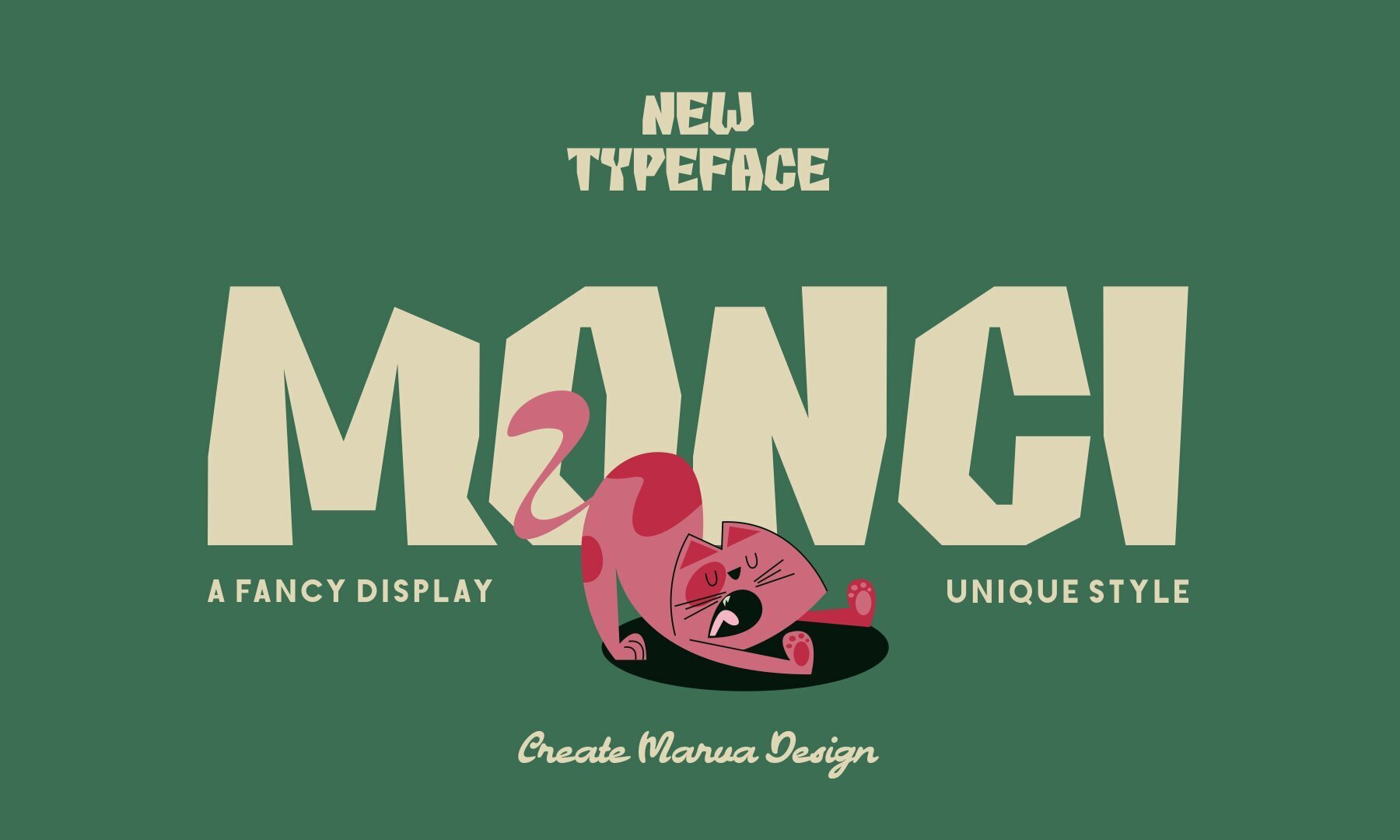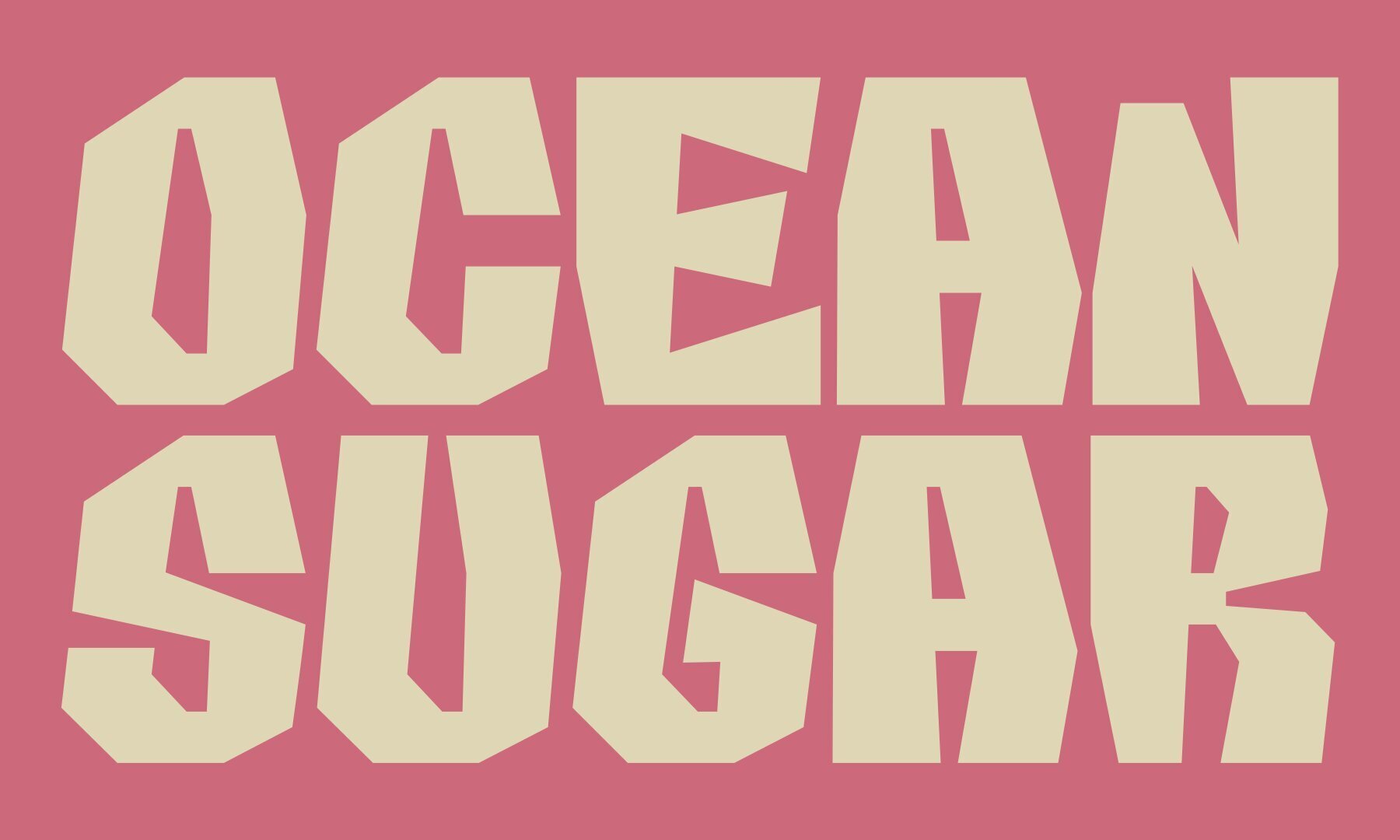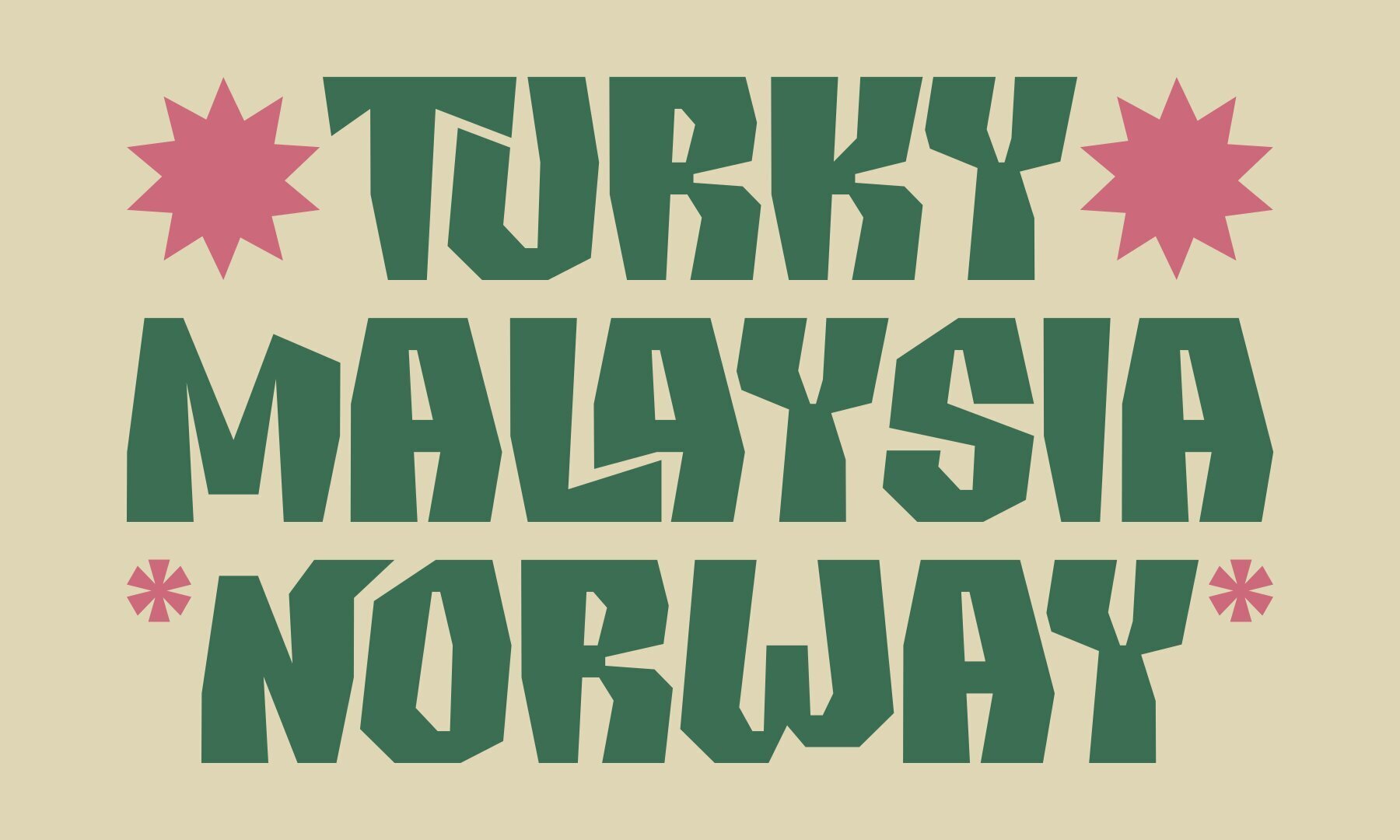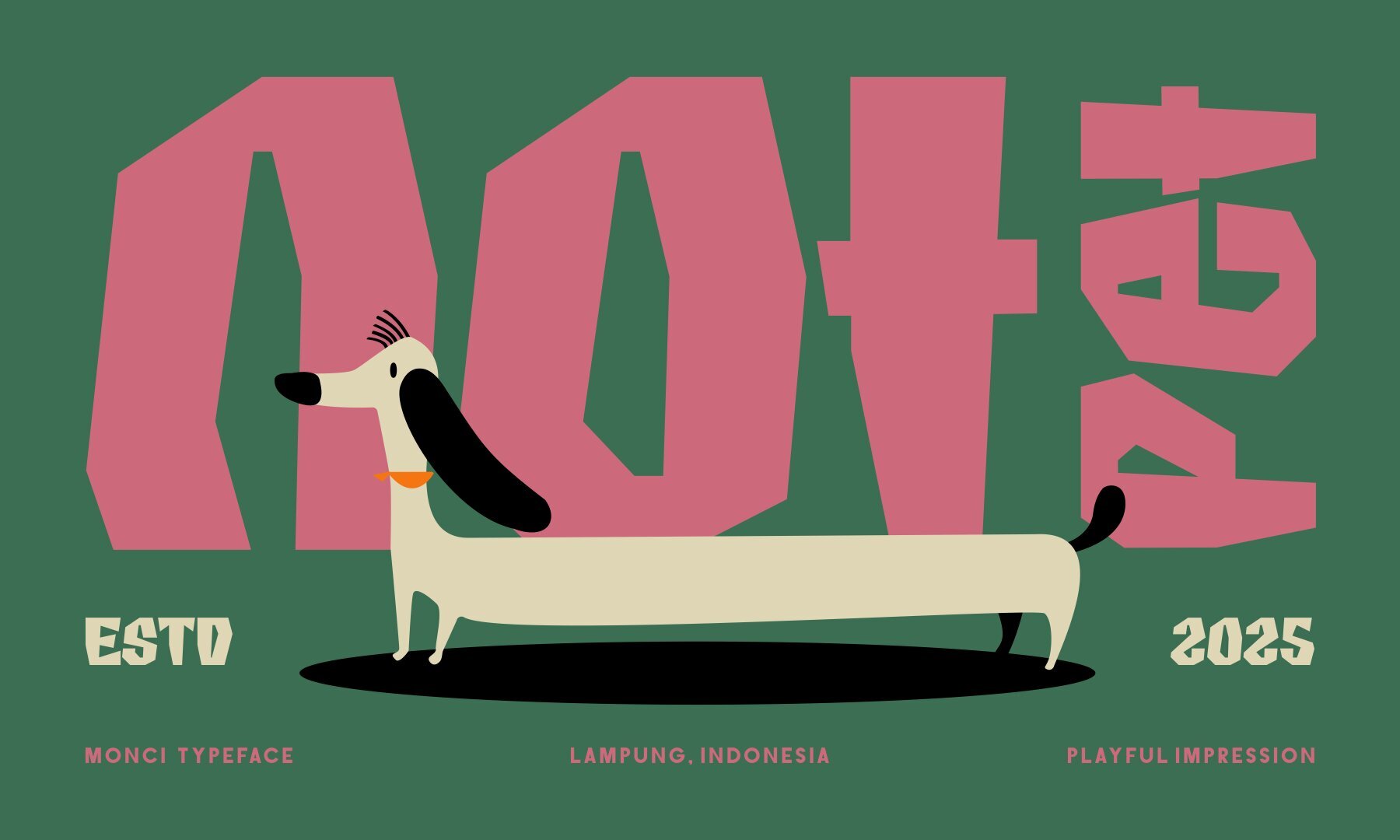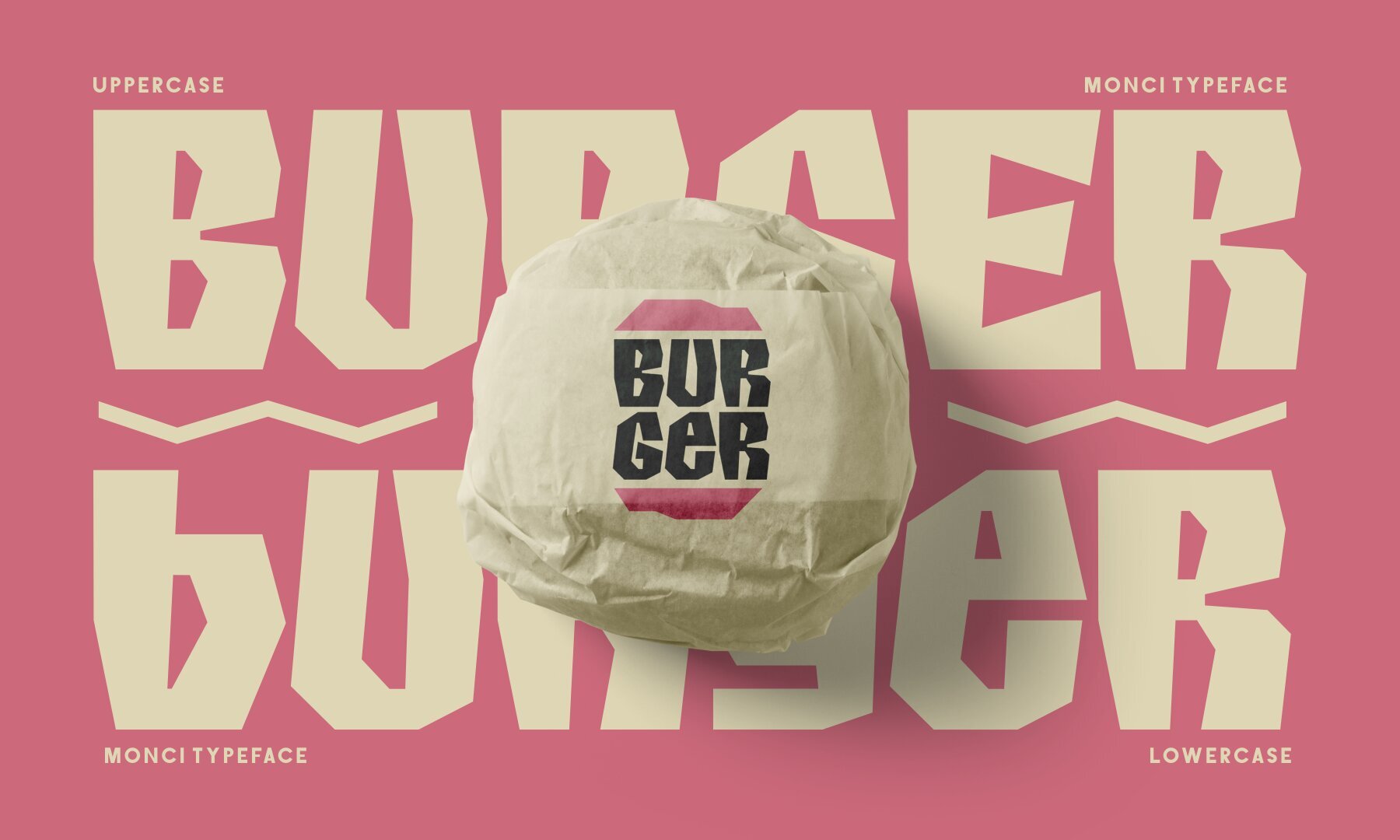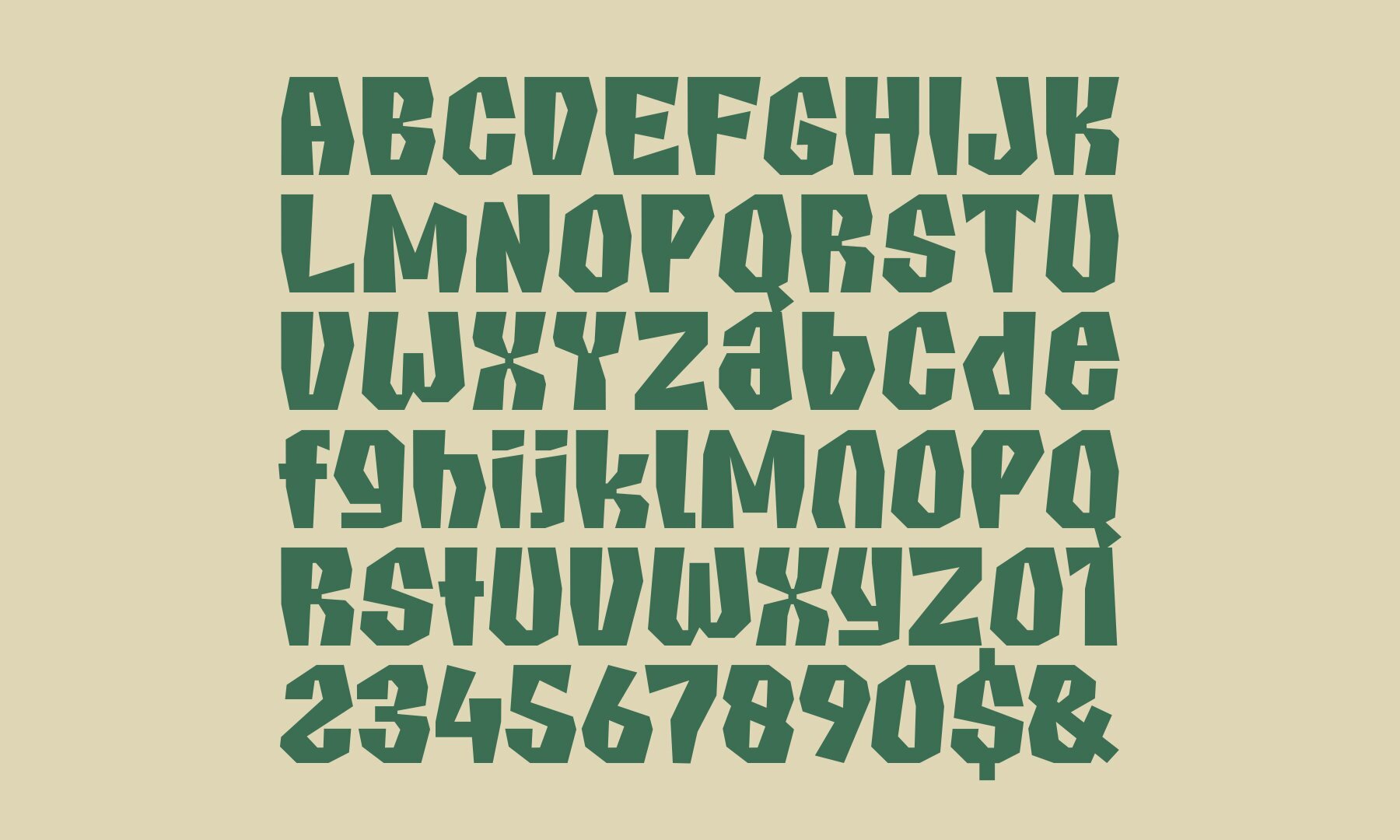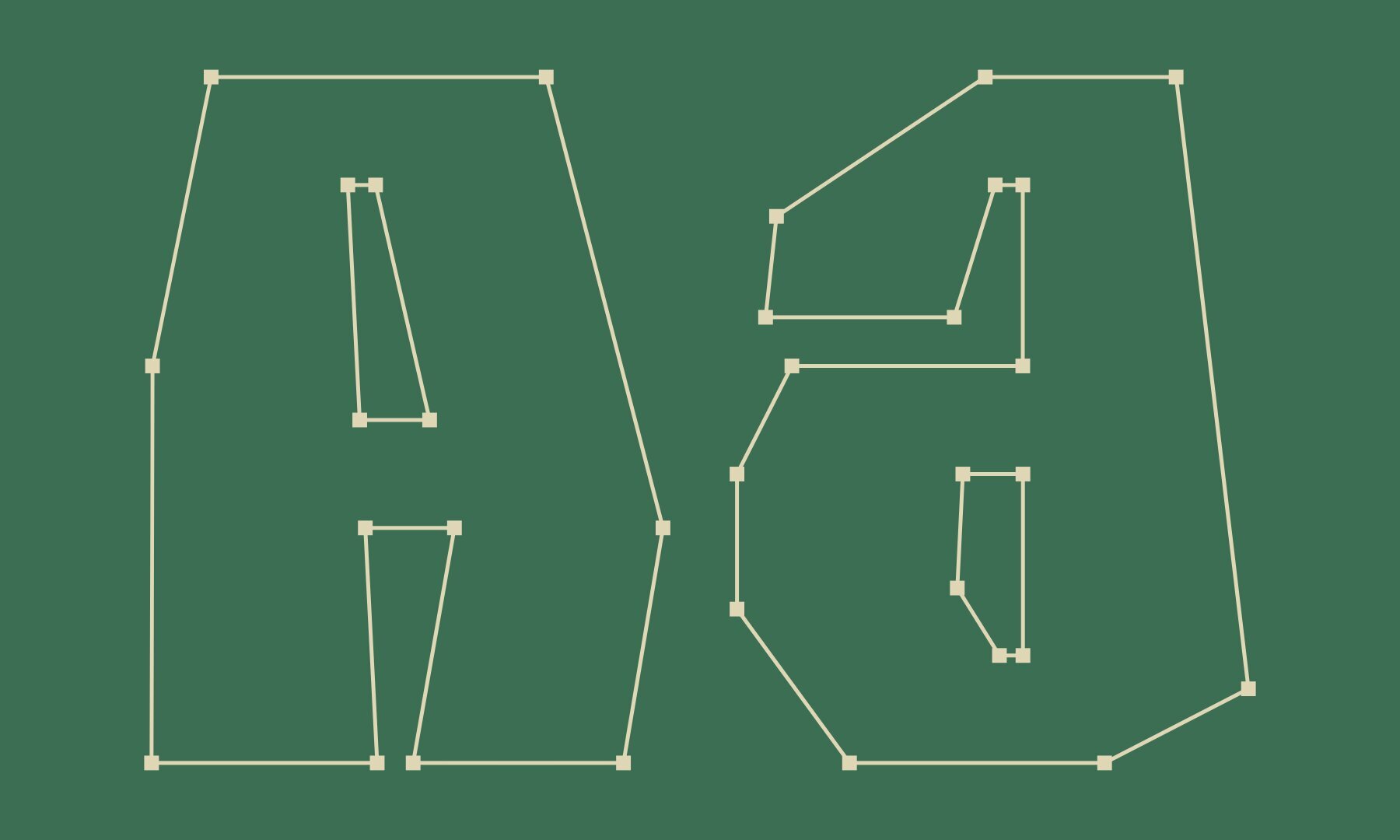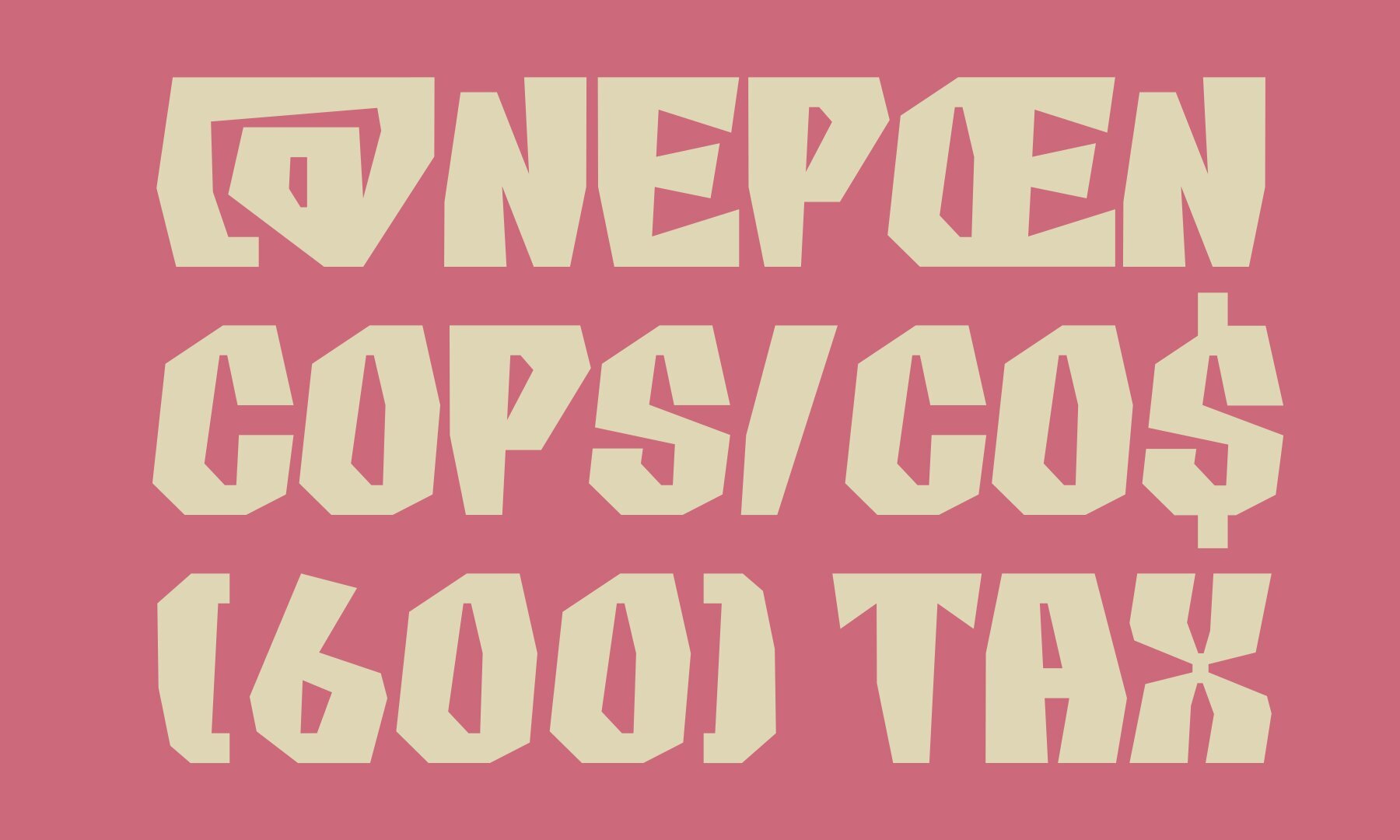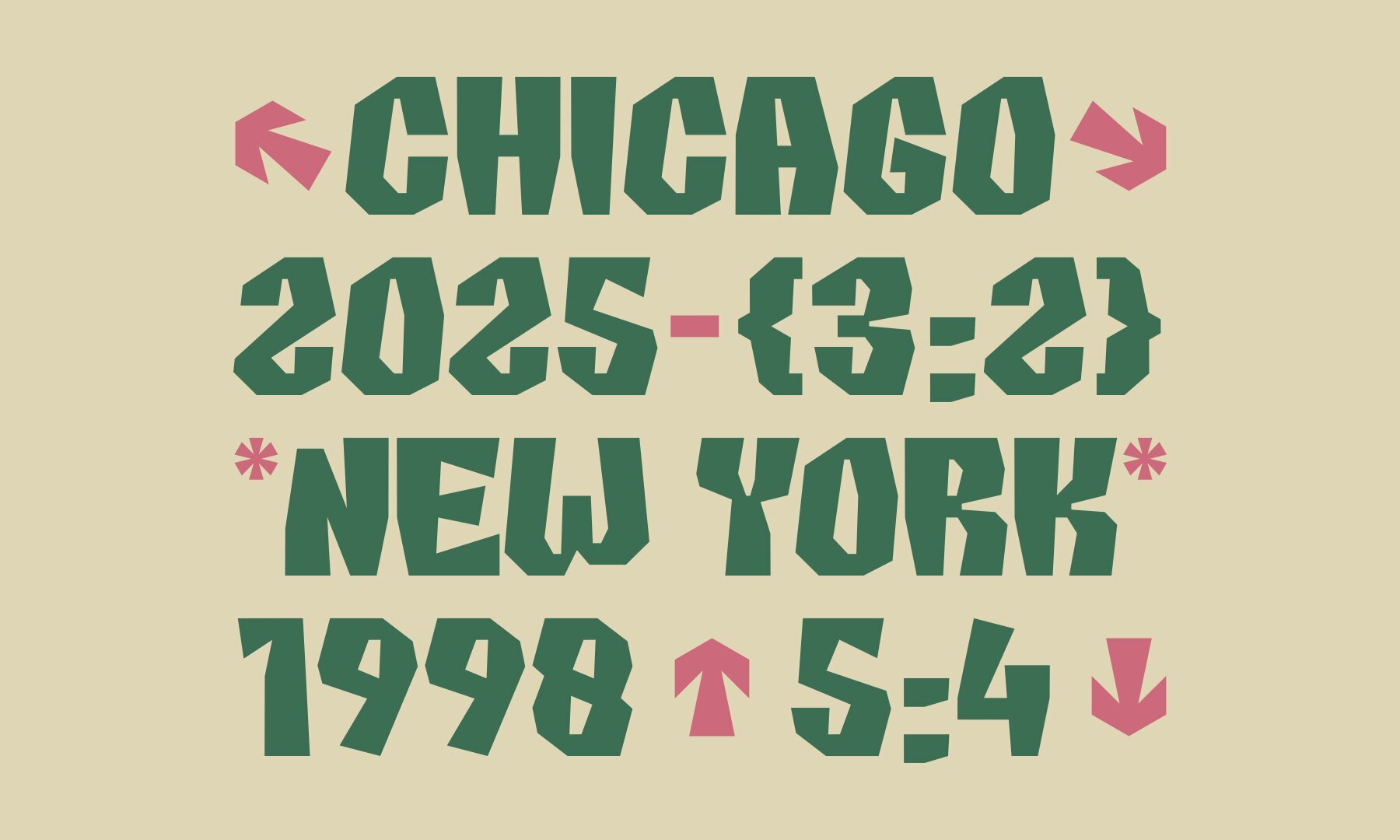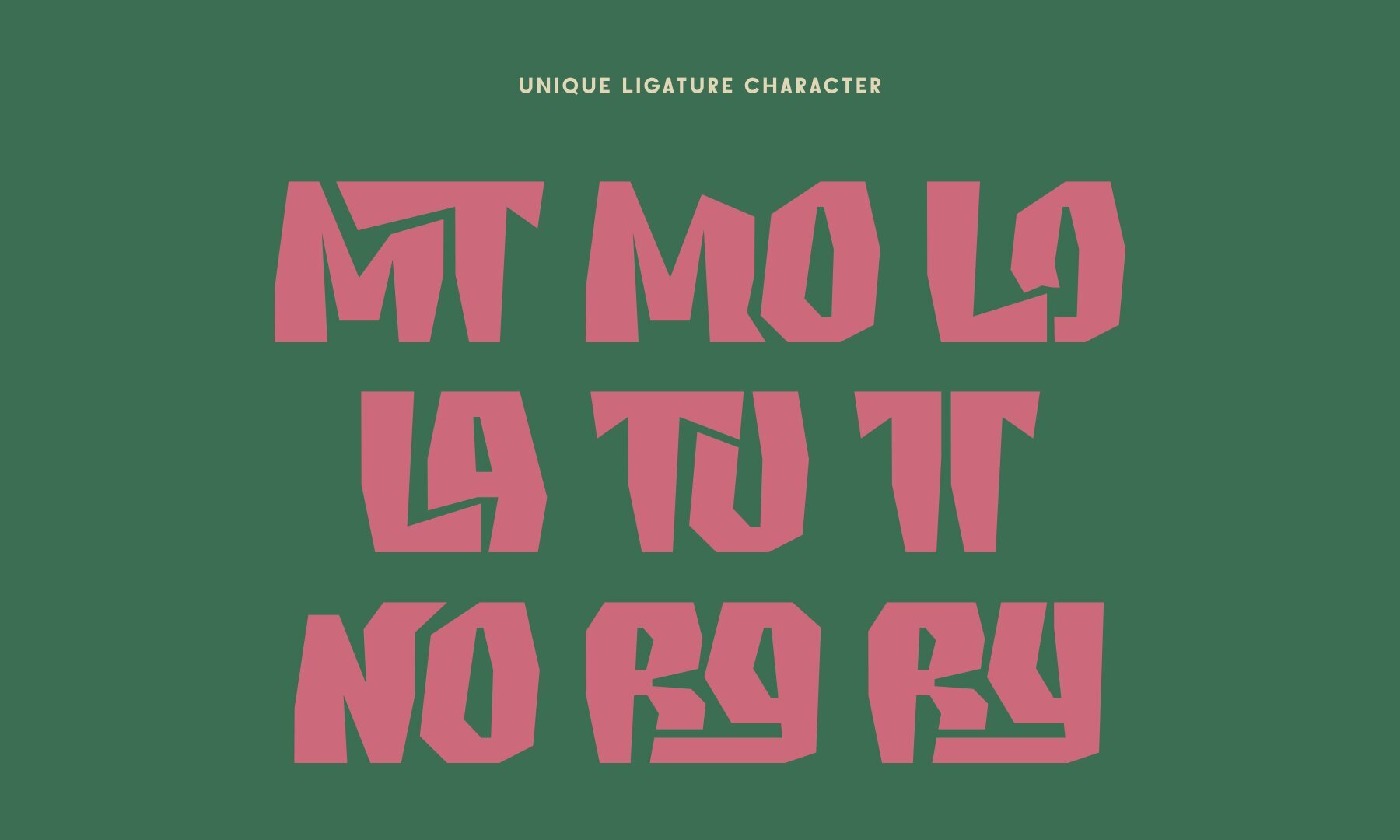
MONCI Font
MONCI
Monci offers a unique visual identity through its bold geometric shapes and expressive, irregular structures. This distinctive typeface strikes a balance between playfulness and impact, making it ideal for headlines, posters, packaging, and branding initiatives seeking originality. The inventive letterforms of Monci ensure your projects stand out while maintaining readability.Monci: A Bold Geometric Display Typeface